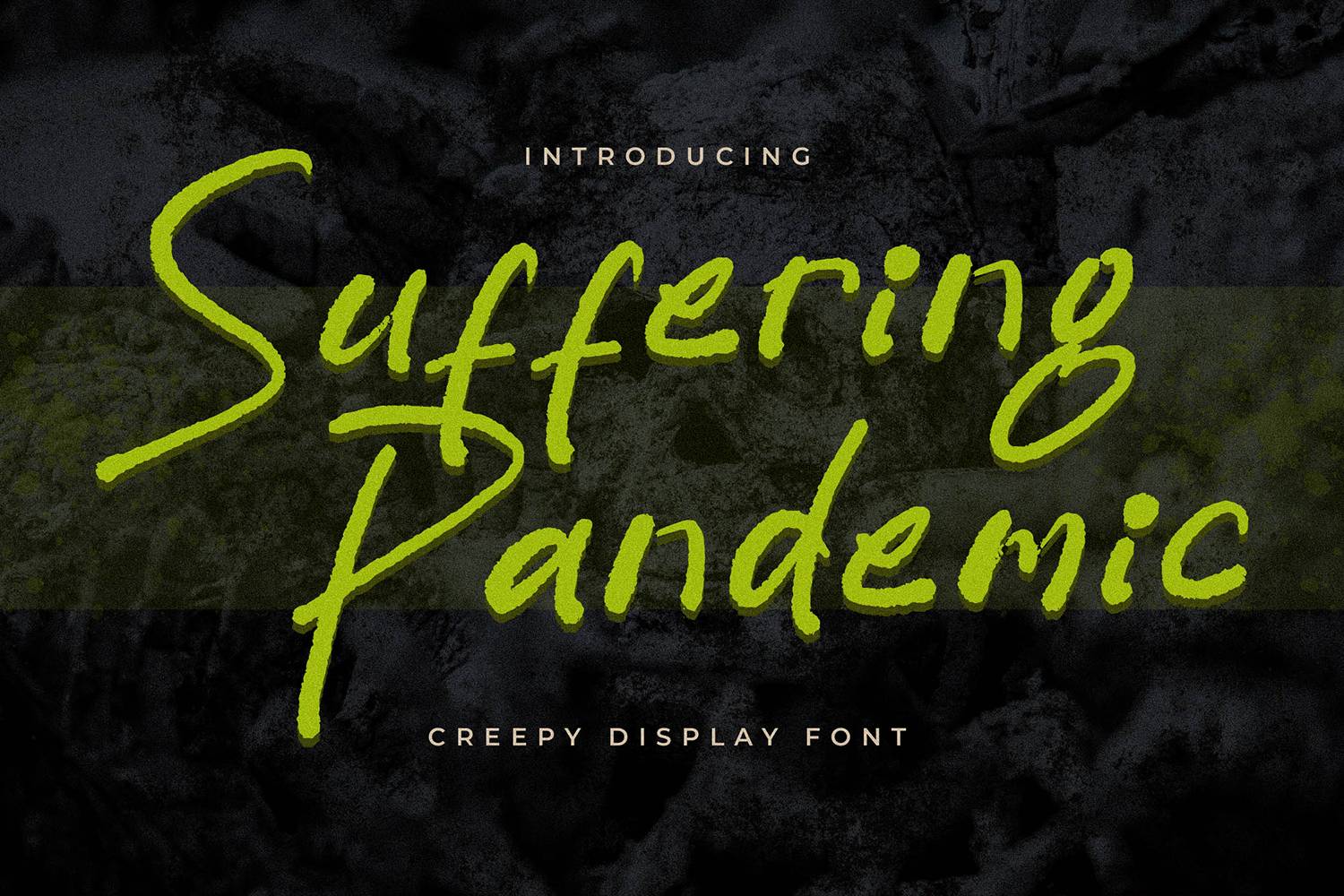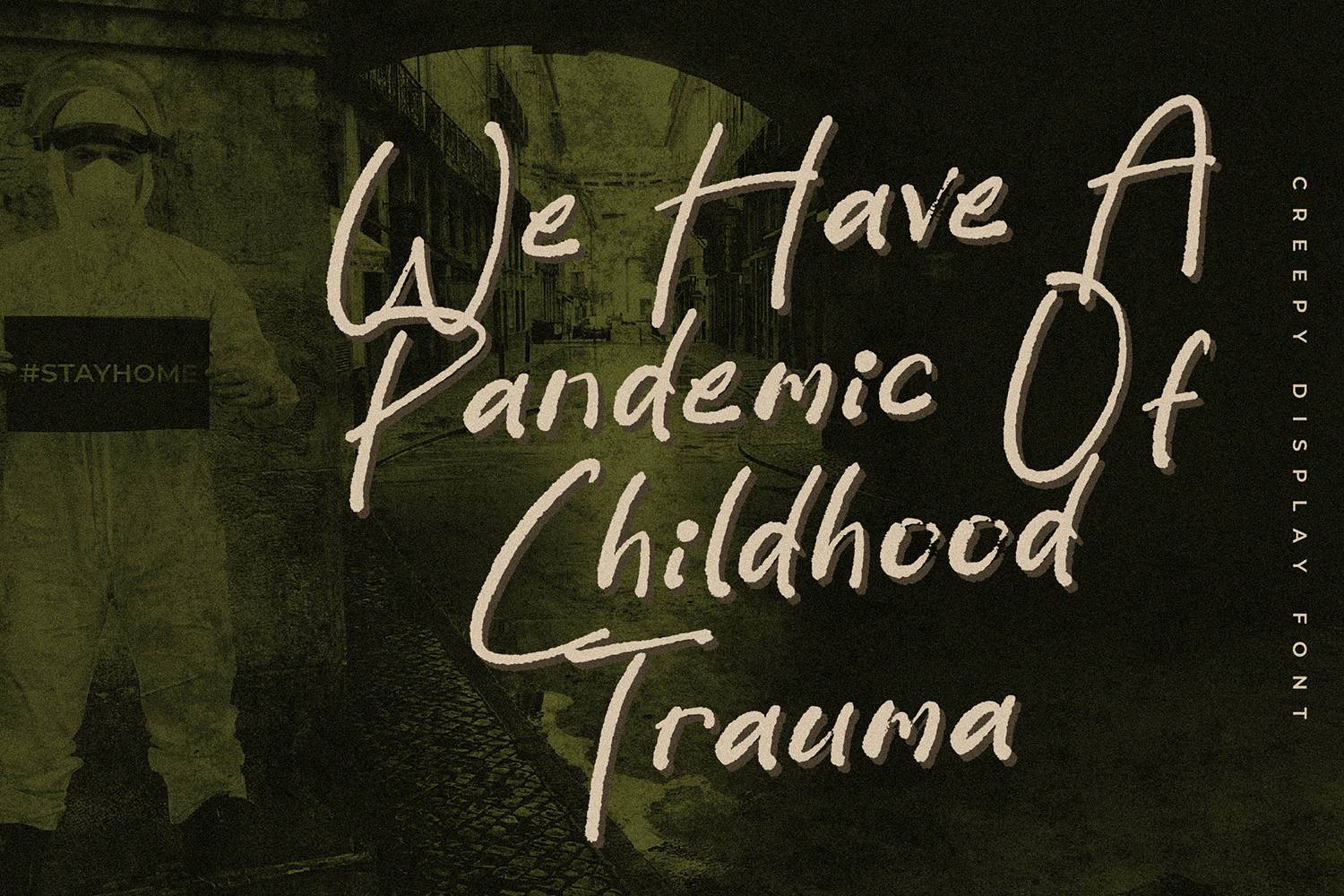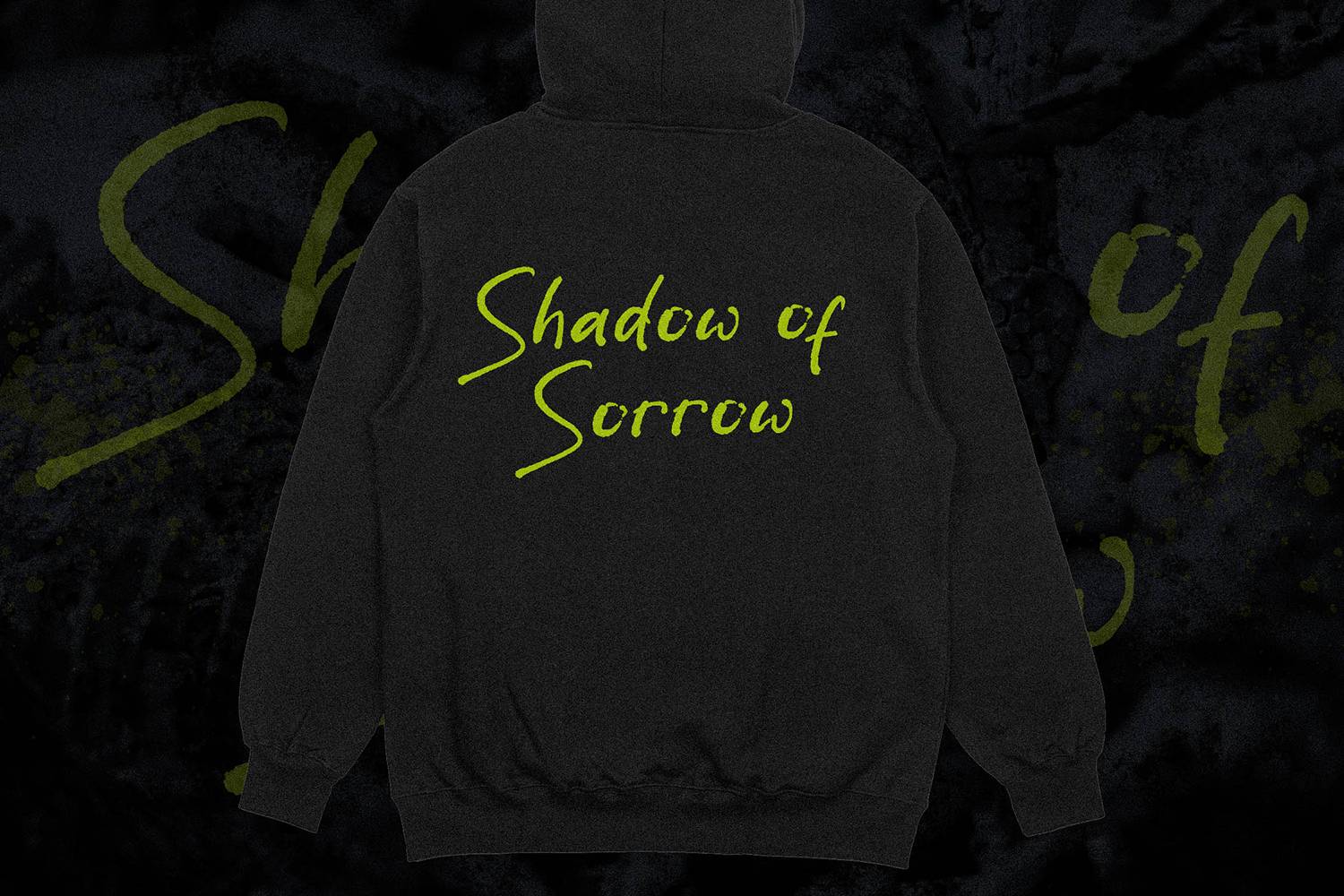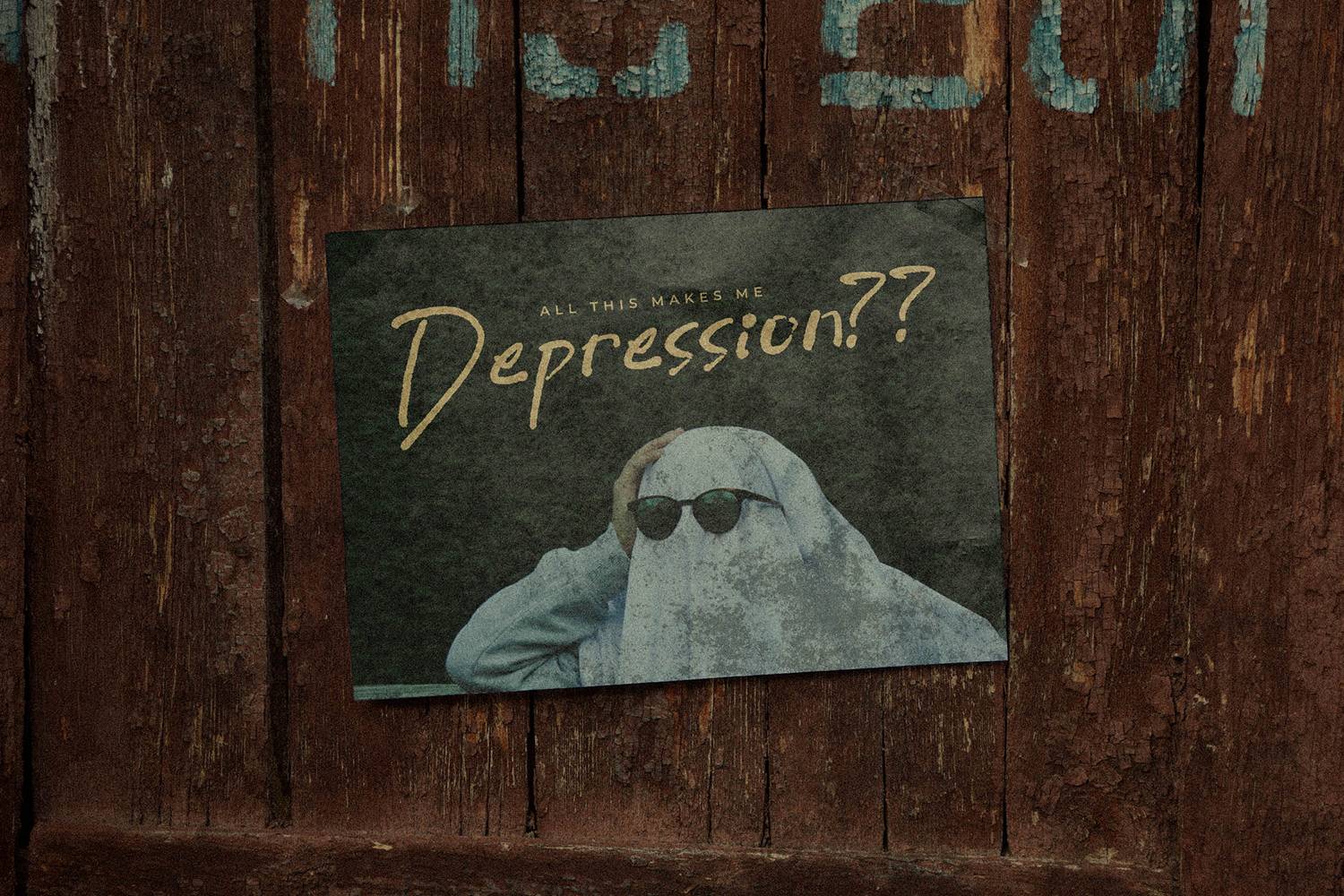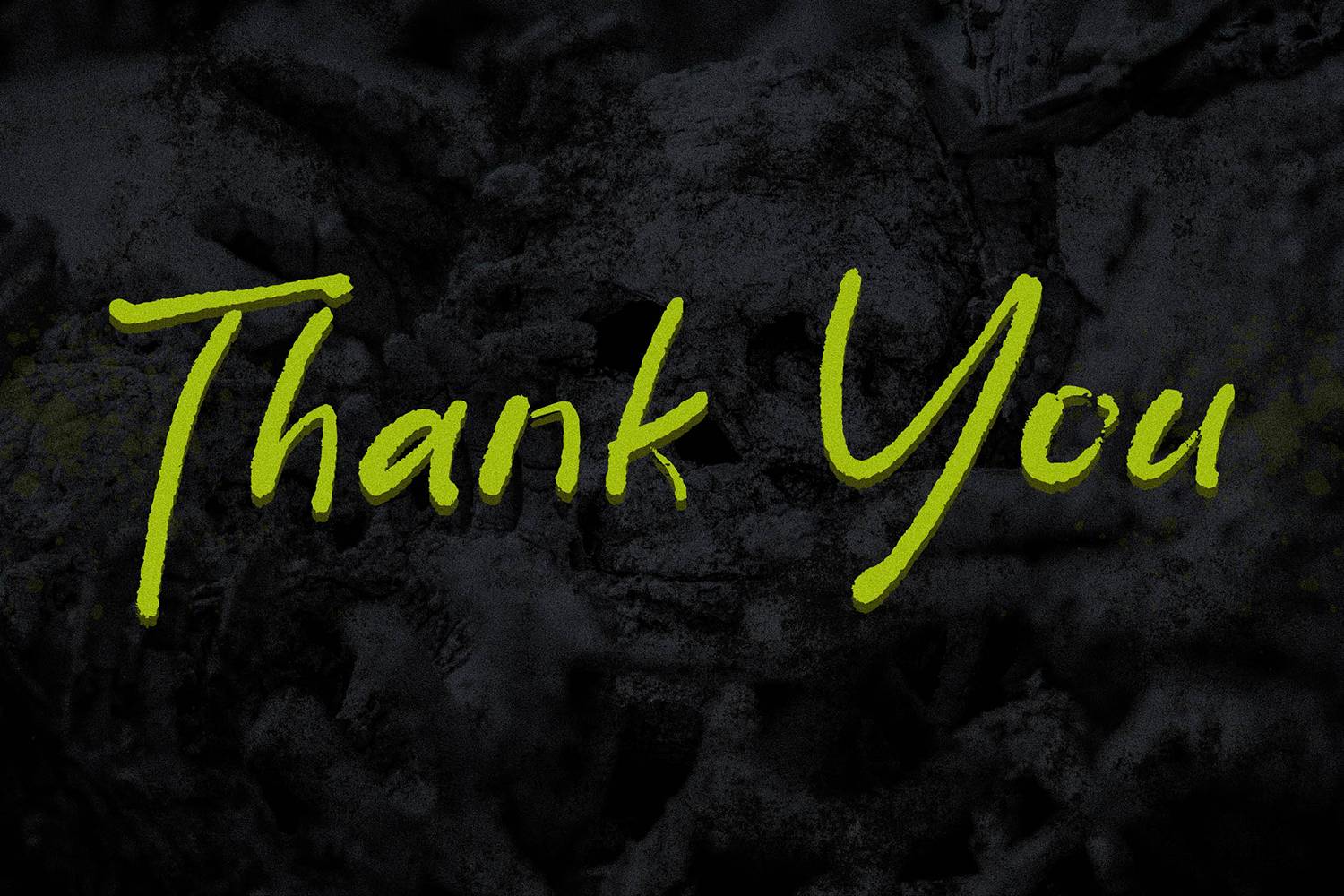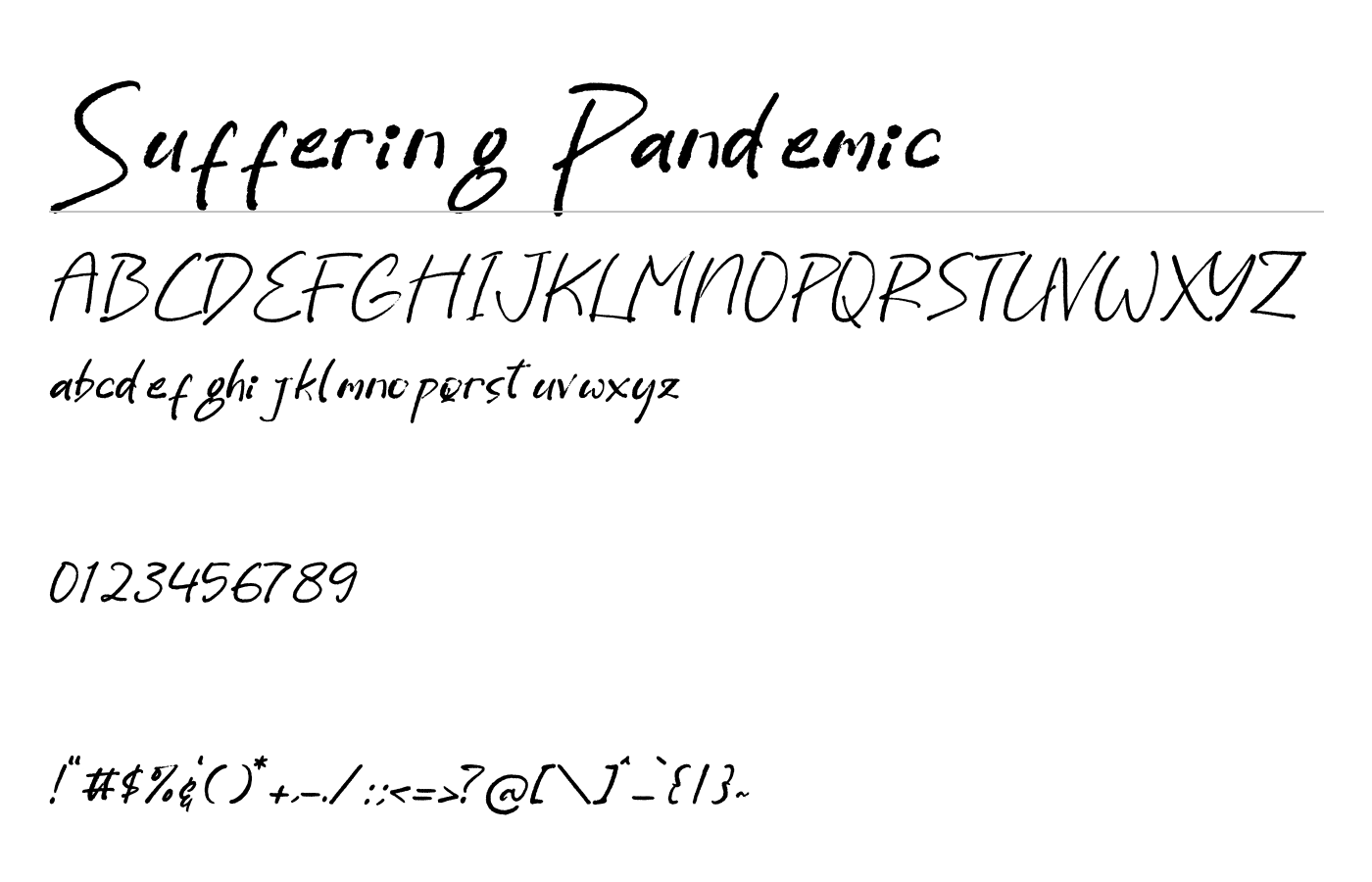
Suffering Pandemic is a distinctive handwritten font with an organic, slightly rough texture that gives it a raw, expressive personality. Its irregular strokes and casual style make it feel personal and emotional, perfect for projects needing a touch of human vulnerability and authenticity. This font works well in creative titles, posters, and expressive branding where conveying mood and character is key.
Suffering Pandemic Font
About Suffering Pandemic Font